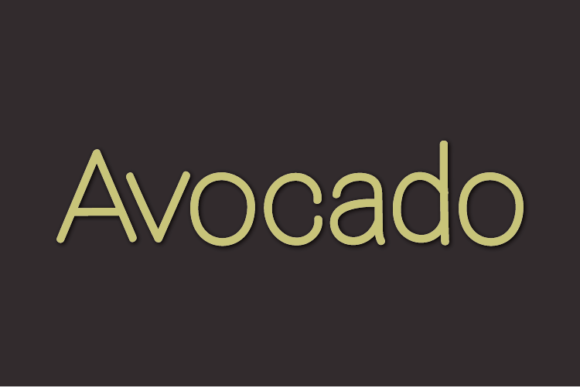
Introducing Avocado Font: Elevate Your Design with a Touch of Elegance
In the world of typography, fonts play a crucial role in conveying the tone and personality of a brand or product. For designers and crafters, finding the perfect font can be a daunting task. However, if you’re looking for a typeface that exudes natural elegance and sophistication, look no further than the Avocado Font. This casual and neat sans serif font is designed to impress, making it an excellent addition to your design arsenal.
The Avocado Font: A Perfect Blend of Style and Versatility
Avocado Font is a beautifully crafted typeface that boasts a unique blend of style and versatility. Its sans serif design ensures that your text remains clean and easy to read, while its elegant style adds a touch of sophistication to your design. Whether you’re working on a branding project, crafting a logo, or creating engaging content, Avocado Font is the perfect choice.
What Makes Avocado Font Stand Out?
So, what sets Avocado Font apart from other typefaces? Here are a few key features that make it an excellent choice for designers and crafters:
- Natural and Elegant Style: Avocado Font’s unique design ensures that your text looks natural and elegant, making it perfect for designs that require a touch of sophistication.
- Casual and Neat: The font’s casual and neat design ensures that your text remains easy to read, while its sans serif style adds a touch of modernity.
- Versatile: Avocado Font is a versatile typeface that can be used for a wide range of design projects, from branding and logos to packaging and digital content.
Benefits of Using Avocado Font
Using Avocado Font in your design projects can have numerous benefits. Here are a few reasons why you should consider adding it to your typography collection:
- Enhance Your Craft: Avocado Font is designed to enhance your craft with little effort. Its elegant style and versatility ensure that your design stands out from the competition.
- Save Time: With Avocado Font, you can save time and effort in finding the perfect typeface for your design project. Its unique style and versatility ensure that you can use it for a wide range of projects.
- Improve Readability: Avocado Font’s clean and sans serif design ensures that your text remains easy to read, making it perfect for digital content and print materials.
How to Use Avocado Font in Your Design Projects
Using Avocado Font in your design projects is easy. Here are a few tips to get you started:
- Pair it with Other Fonts: Avocado Font can be paired with other fonts to create a unique and visually appealing design. Experiment with different font combinations to find the perfect match.
- Use it for Headings and Body Text: Avocado Font can be used for both headings and body text. Its elegant style and versatility ensure that it remains easy to read, even at smaller font sizes.
- Experiment with Different Colors: Avocado Font looks great in a variety of colors. Experiment with different color combinations to find the perfect match for your design.
In conclusion, Avocado Font is a beautifully crafted typeface that offers a unique blend of style and versatility. Its natural and elegant style, casual and neat design, and versatility make it an excellent choice for designers and crafters. Whether you’re working on a branding project, crafting a logo, or creating engaging content, Avocado Font is the perfect choice. So why wait? Add Avocado Font to your typography collection today and elevate your design with a touch of elegance.